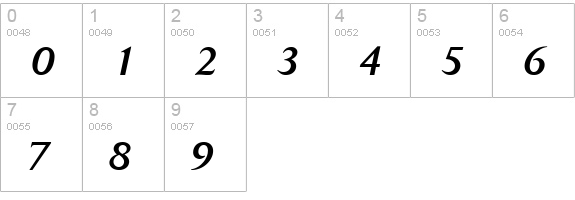
Daily News Medium Italic is a balanced, medium-weight, italic variant in the Daily typeface family \xE2\x80\x94 well suited to sub-headlines, navigation, and balanced editorial work.
Introducing Daily News Medium Italic font, a timeless and versatile typeface designed to bring elegance and sophistication to any project. With its sleek lines and subtle curves, this font exudes a sense of modernity and professionalism. The medium weight adds just the right amount of emphasis, making it perfect for headlines, titles, and subheadings that need to grab attention. Daily News Medium Italic font strikes a balance between readability and style, making it suitable for a wide range of applications. Whether you're designing a magazine layout, creating a logo, or crafting a website, this font will effortlessly enhance your visuals and elevate your design to new heights. One of the best parts about Daily News Medium Italic font is that it is freely available to download at FontsMarket.com. This means that you can easily access and incorporate this stunning font into your projects without any additional cost. It's a fantastic opportunity to add a touch of sophistication to your work without breaking the bank. With Daily News Medium Italic font, you can captivate your audience and make a lasting impression. Its clean and modern aesthetic, combined with its ease of use, makes it a must-have for graphic designers, typographers, and creatives alike. So why wait? Download Daily News Medium Italic font today from FontsMarket.com and unlock a world of design possibilities.